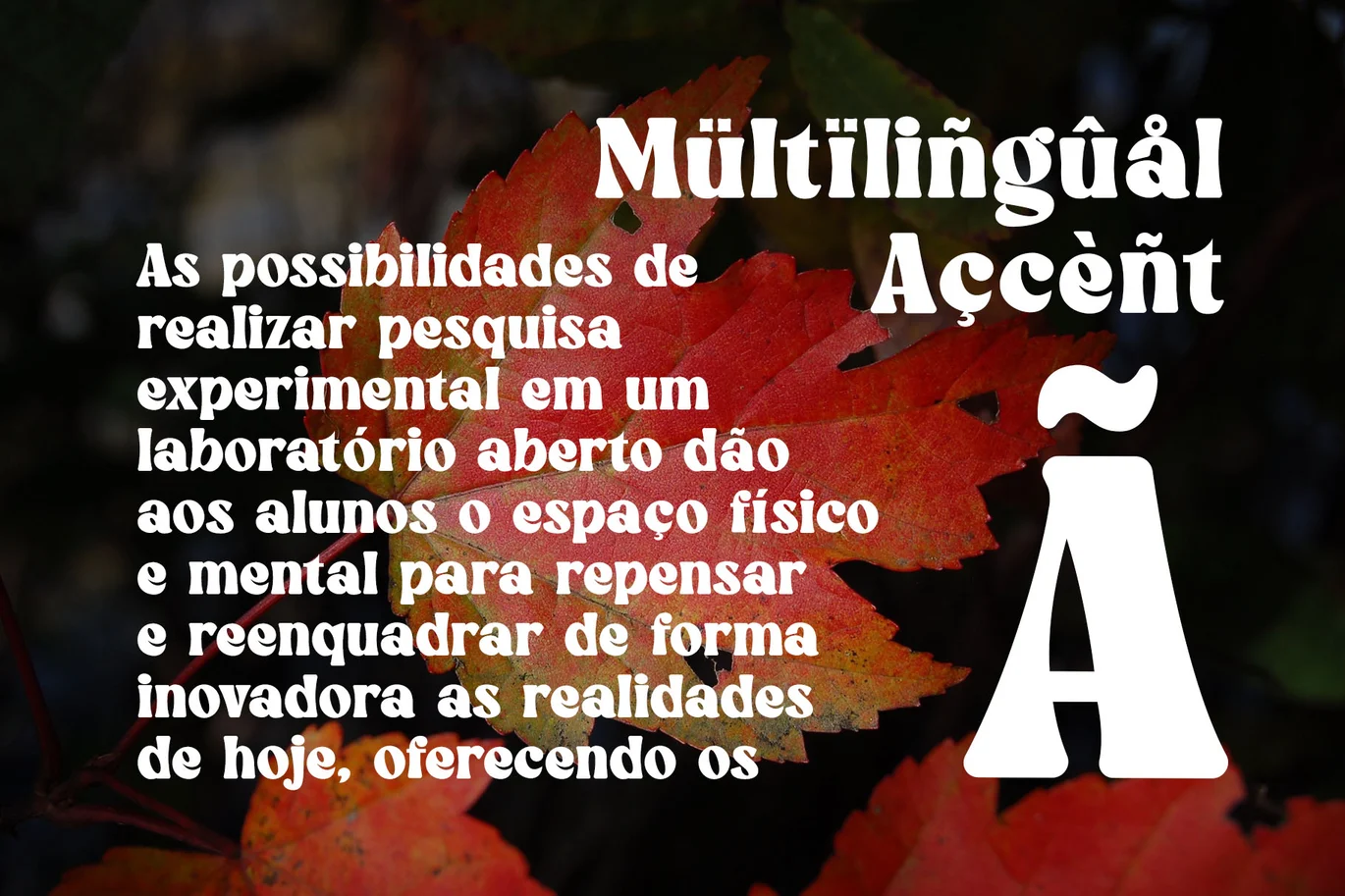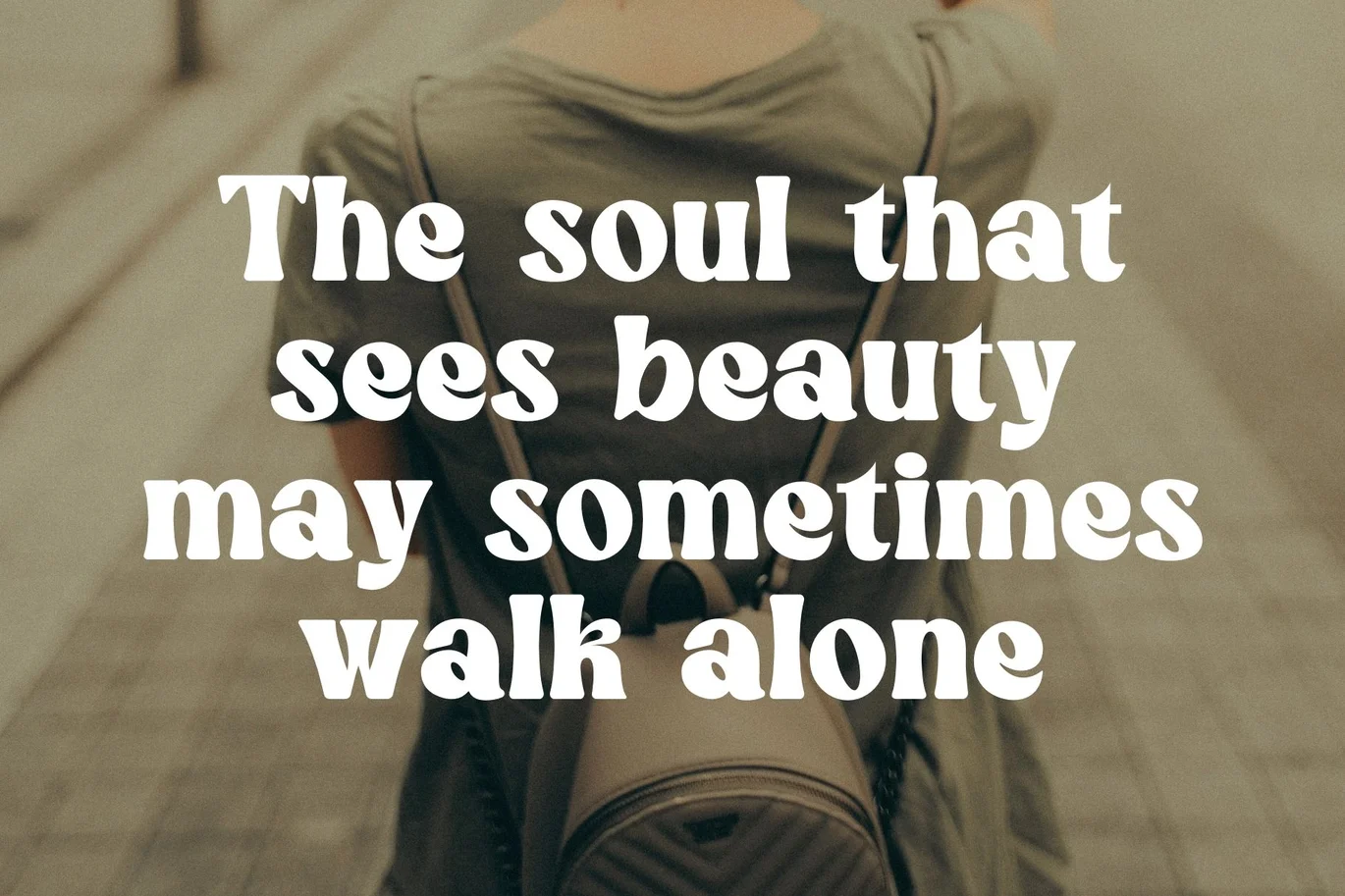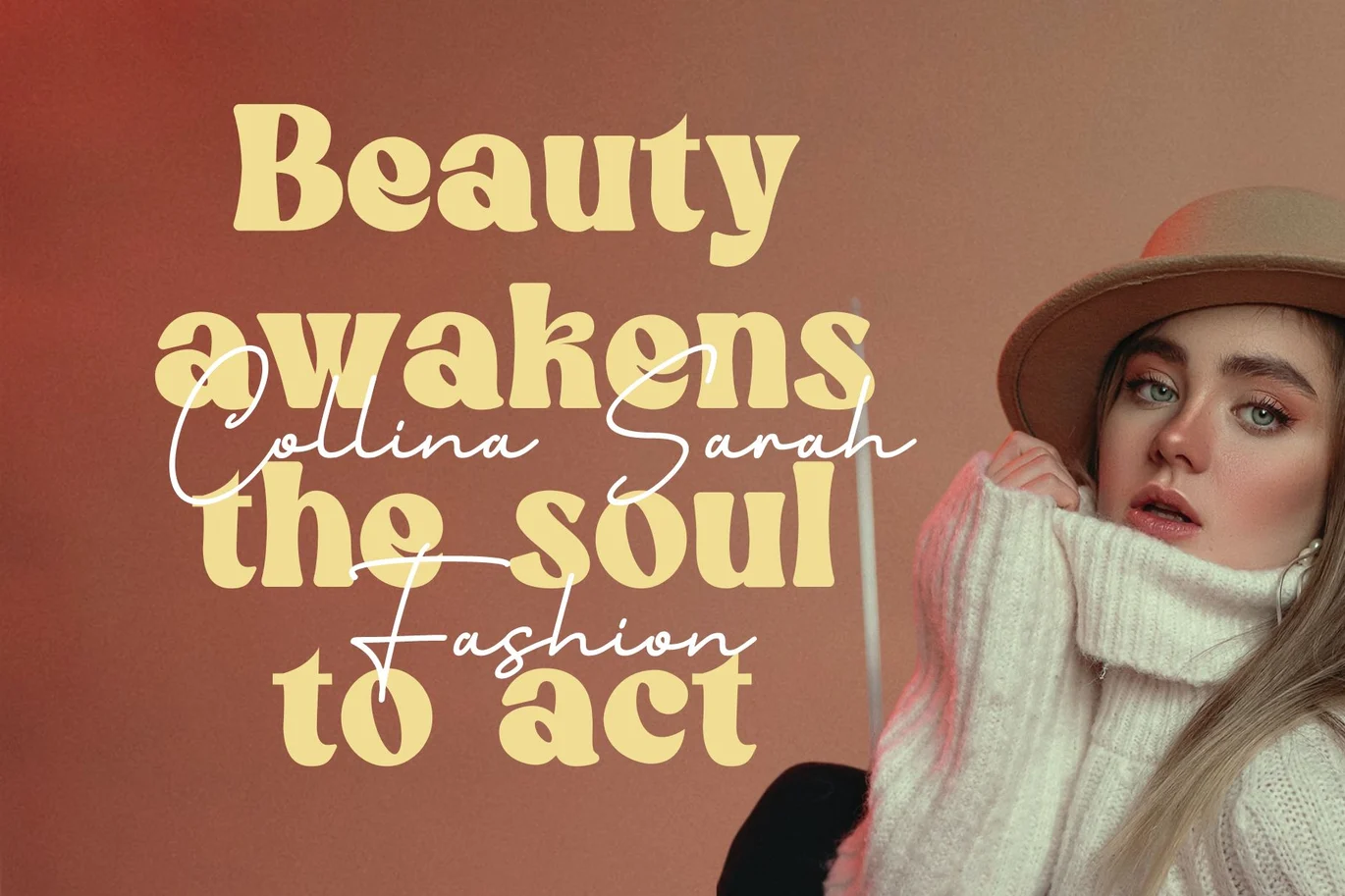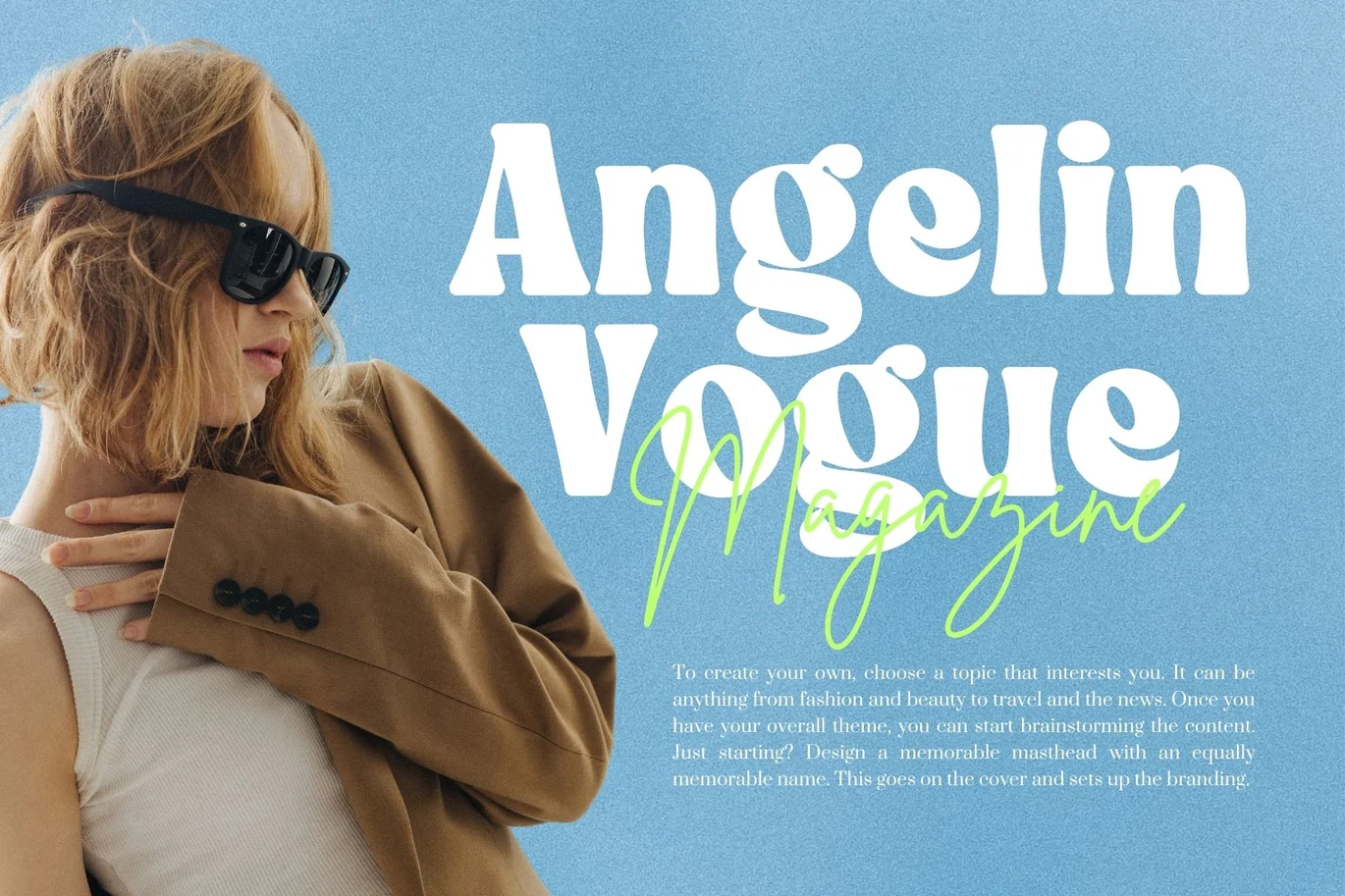
Winky Milky — Elegant Serif Font
Winky Milky is an elegant serif font with smooth, graceful shapes. Additionally, it adds a touch of style and charm to any design. This serif typeface features clean lines and balanced curves. For example, it works well for headlines, logos, invitations, and branding.
The font’s soft strokes and refined serifs give it a modern yet classic look. Therefore, it is perfect for projects that need a feeling of luxury and warmth. Winky Milky is easy to read, even at small sizes. This is because of its clear letter shapes and good spacing.
Key features include:
Elegant serif details
Rounded and smooth terminals
Soft, flowing curves
Works well in print and on screens
Stylish and professional look
Moreover, thanks to its refined style, Winky Milky fits fashion magazines, wedding invites, packaging, and boutique brands. It pairs nicely with simple sans-serif fonts. Together, they create modern and eye-catching designs.
The font is also very readable on any medium. Thus, it is ideal for logos, headings, and promotions. Winky Milky brings a timeless feel without looking old-fashioned.
In short, Winky Milky blends elegance with simplicity. It helps your designs look clear and stylish. Whether you are working on luxury branding or delicate layouts, this font is a smart and beautiful choice.